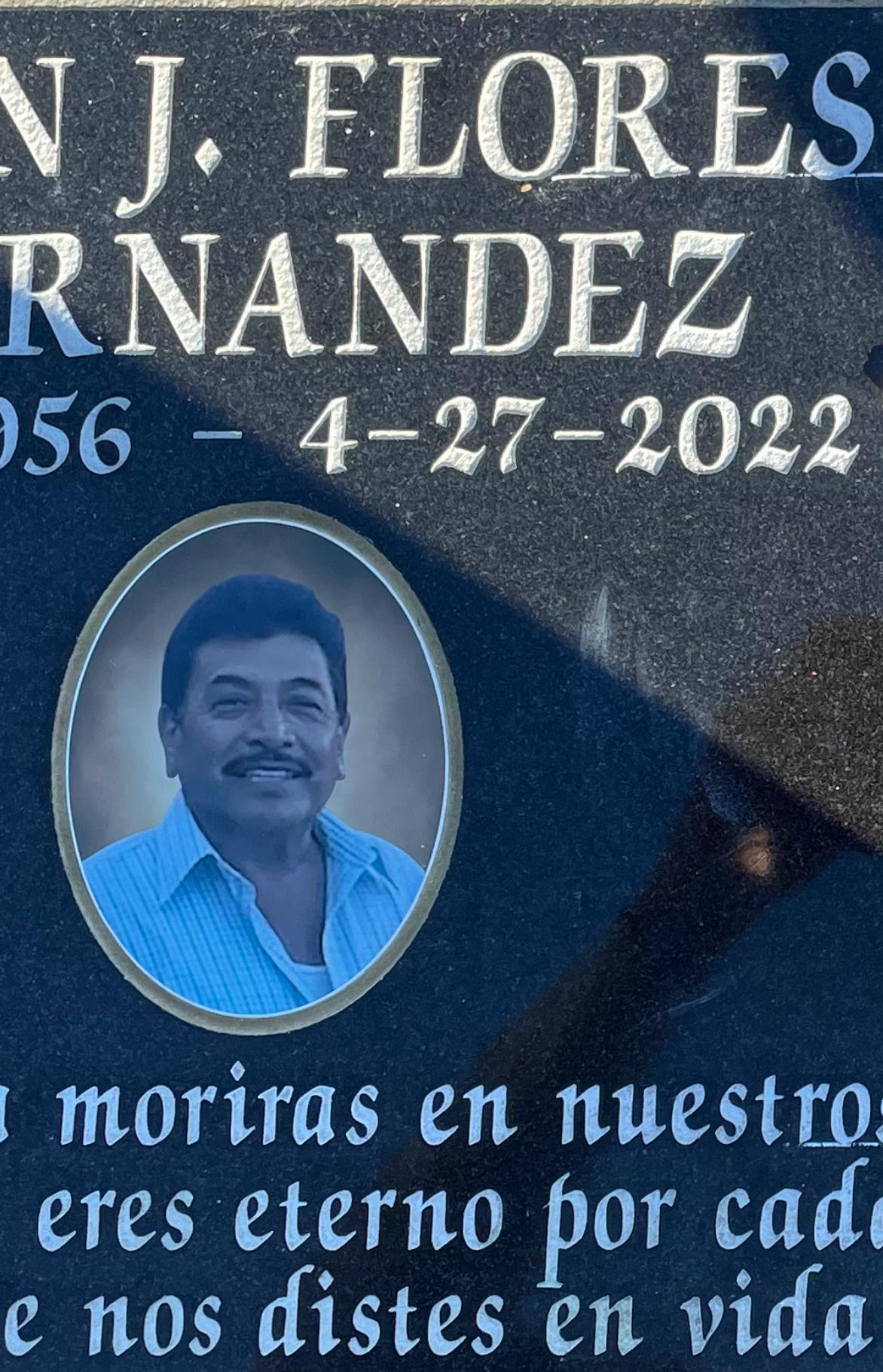
Help please… which version of Chancery is this
I was hoping you could help me identify this particular font.
It is some form of chancery but slight differences.
the bottom of the 2’s are very thick. Also, the 7’s have a downward pointing serif.
The typical chancery fonts have upward serifs on the 7’s.
the 5’s also seem to slight vary in shape compared to the typical chancery.
Hello, this is possibly the Gerber version of Zapf Chancery Bold that has been manually condensed, as the Gerber version has the features on numbers you mentioned. However, in the Gerber version the numbers are non-lining, so this may be a different version unknown to me, likely from a sign-making software.